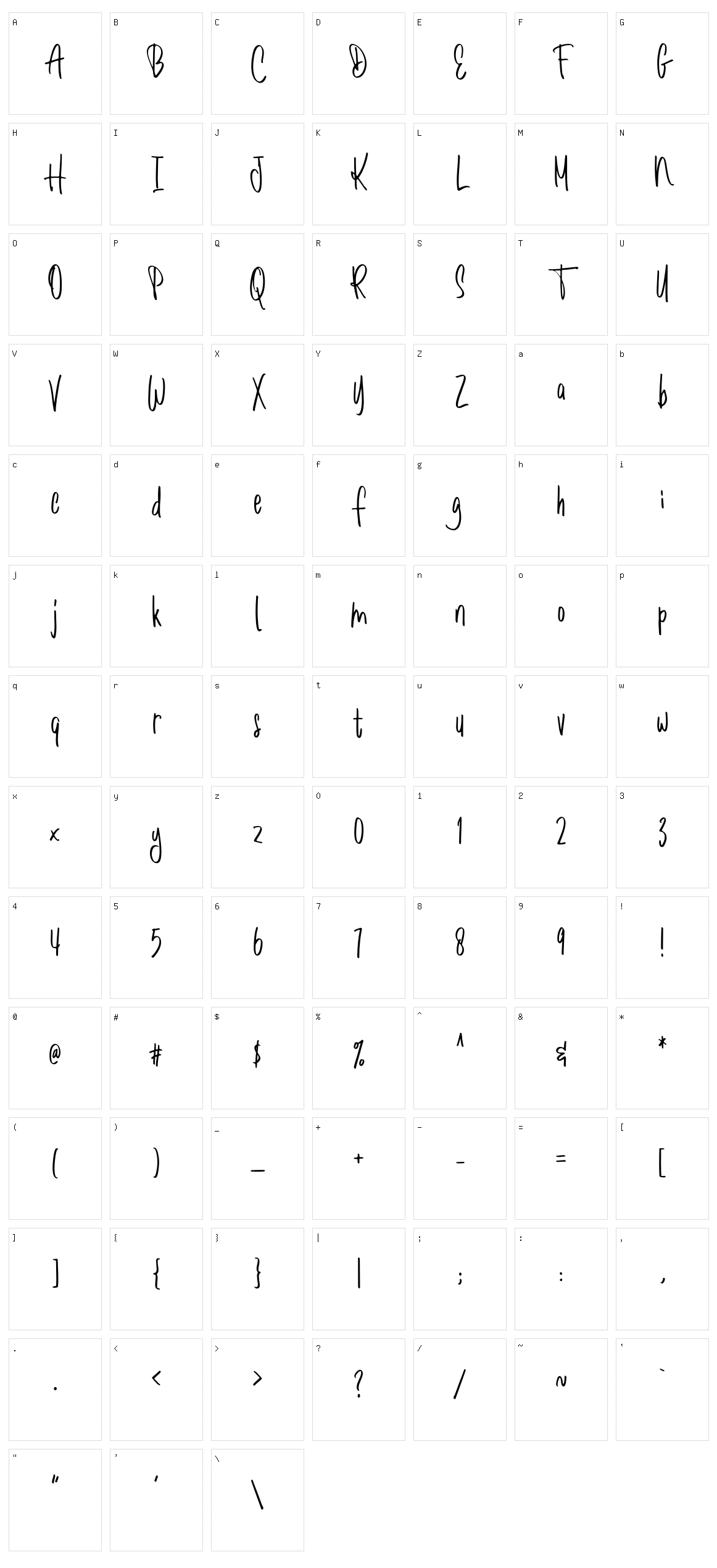
Romantick
Based on handwriting with a thin brush pen, Romantick is a semi-script font that is presented to add a collection of your fonts.
Romantick looks simple with a casual style and also contains some ligature to make your design feel more personal. Even additional characters in stylistic alternates can be an alternative in further exploration.
Romantick is perfect for the design of wedding invitations, quotes, logotypes, packaging etc. And most importantly, you can use Romantick font for free both for personal and commercial purposes.